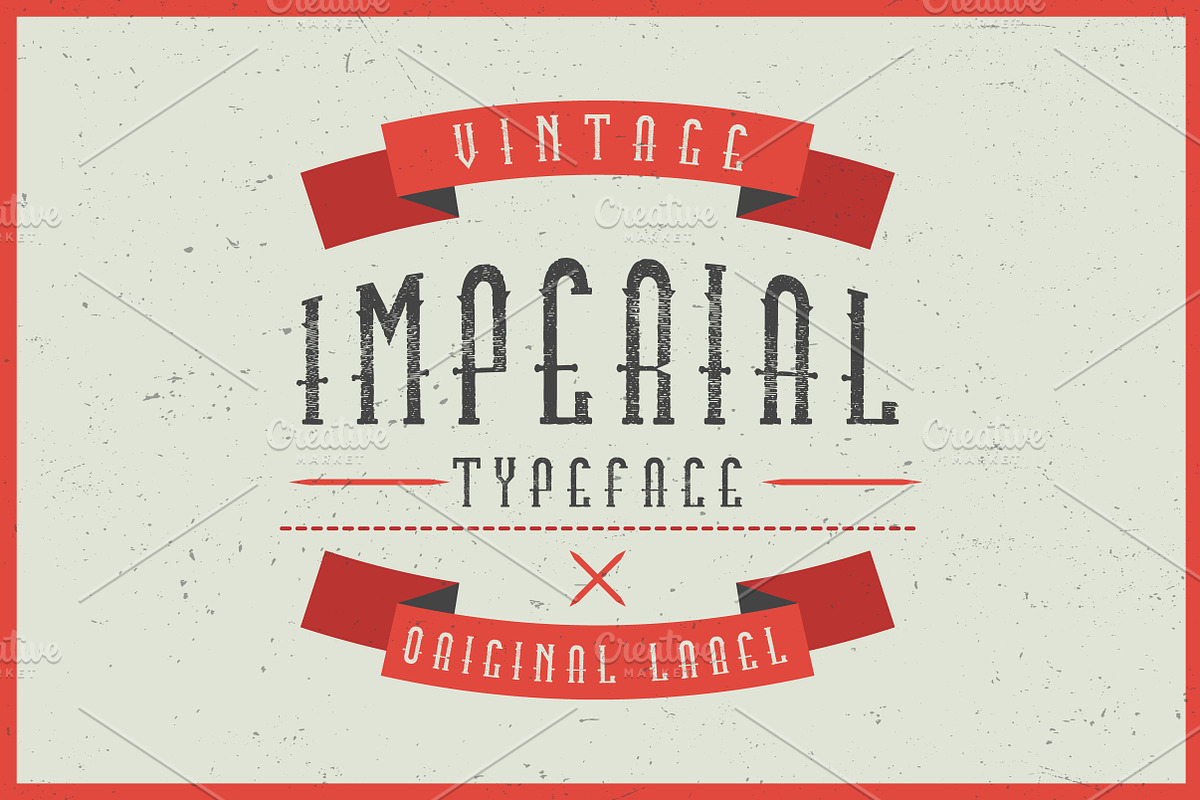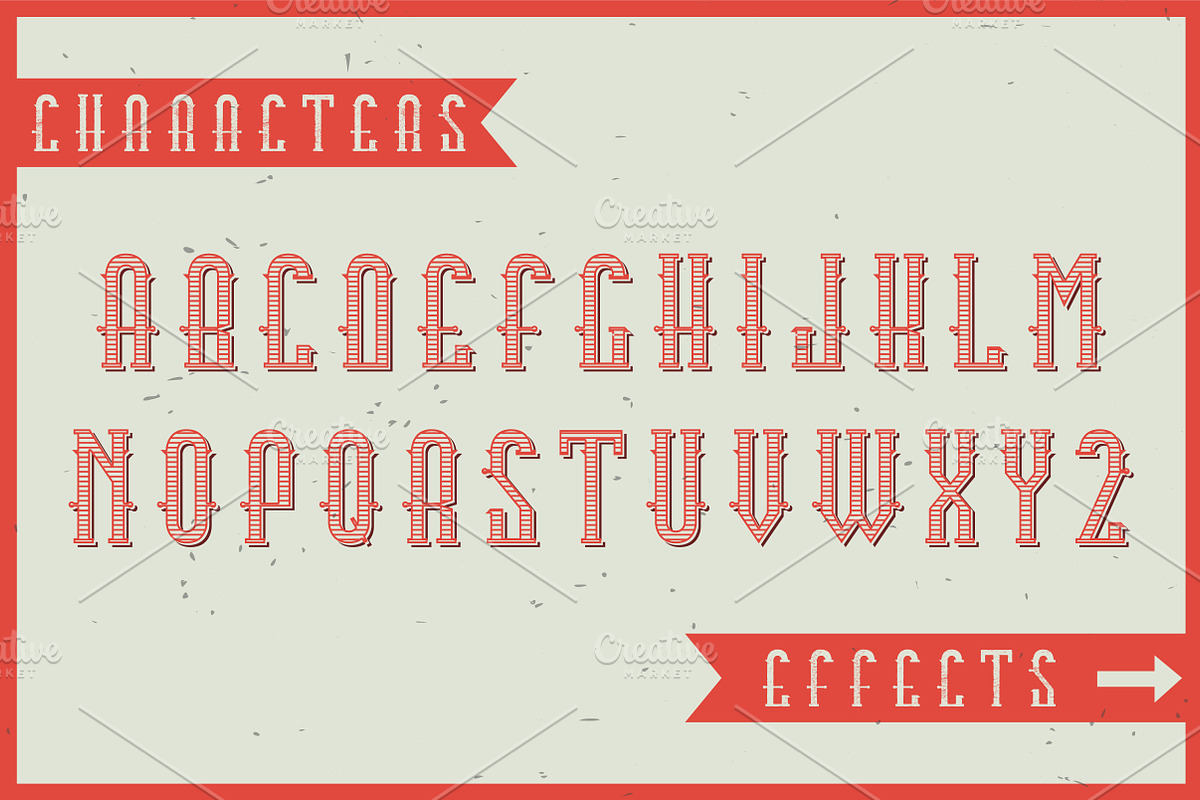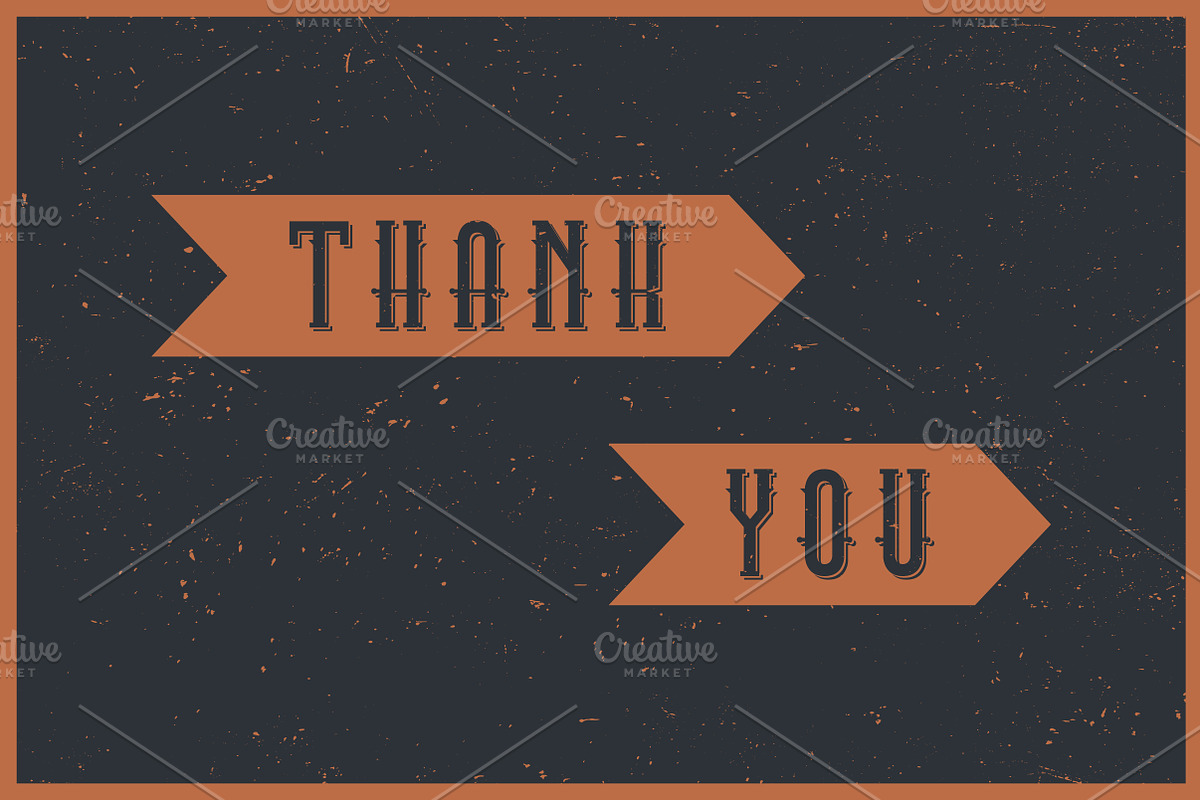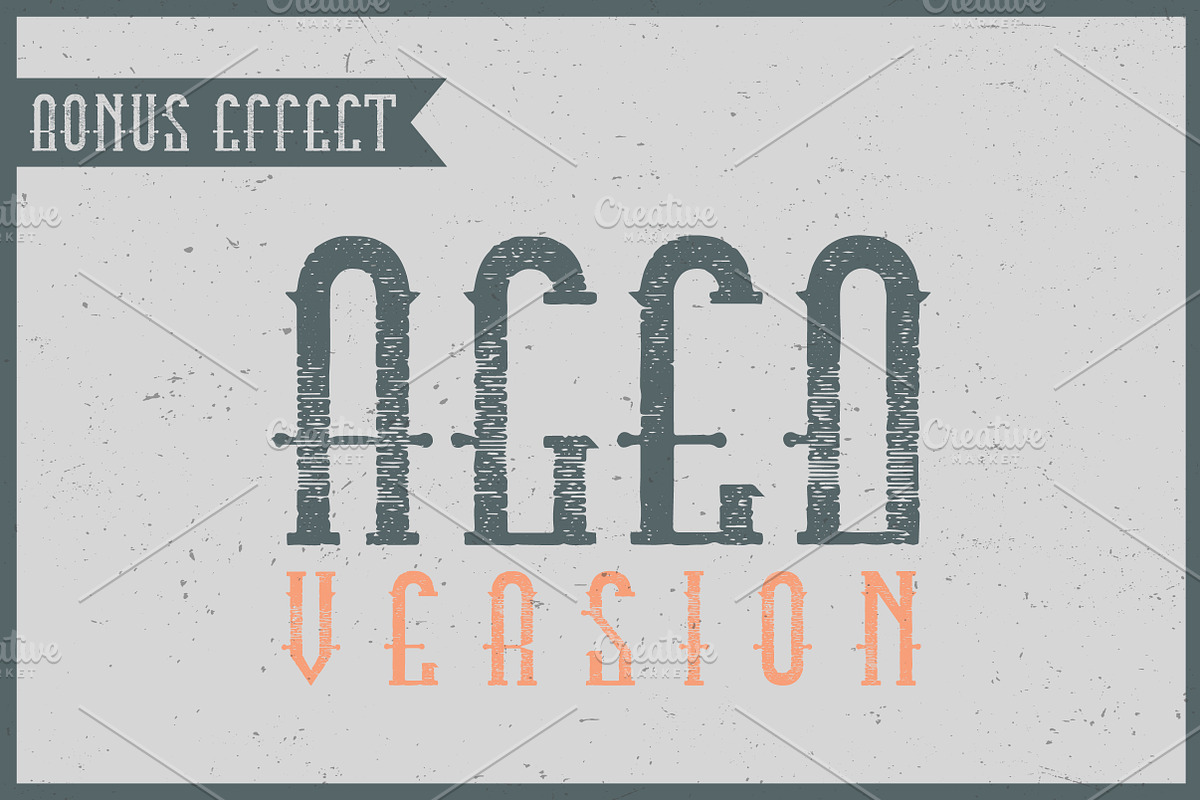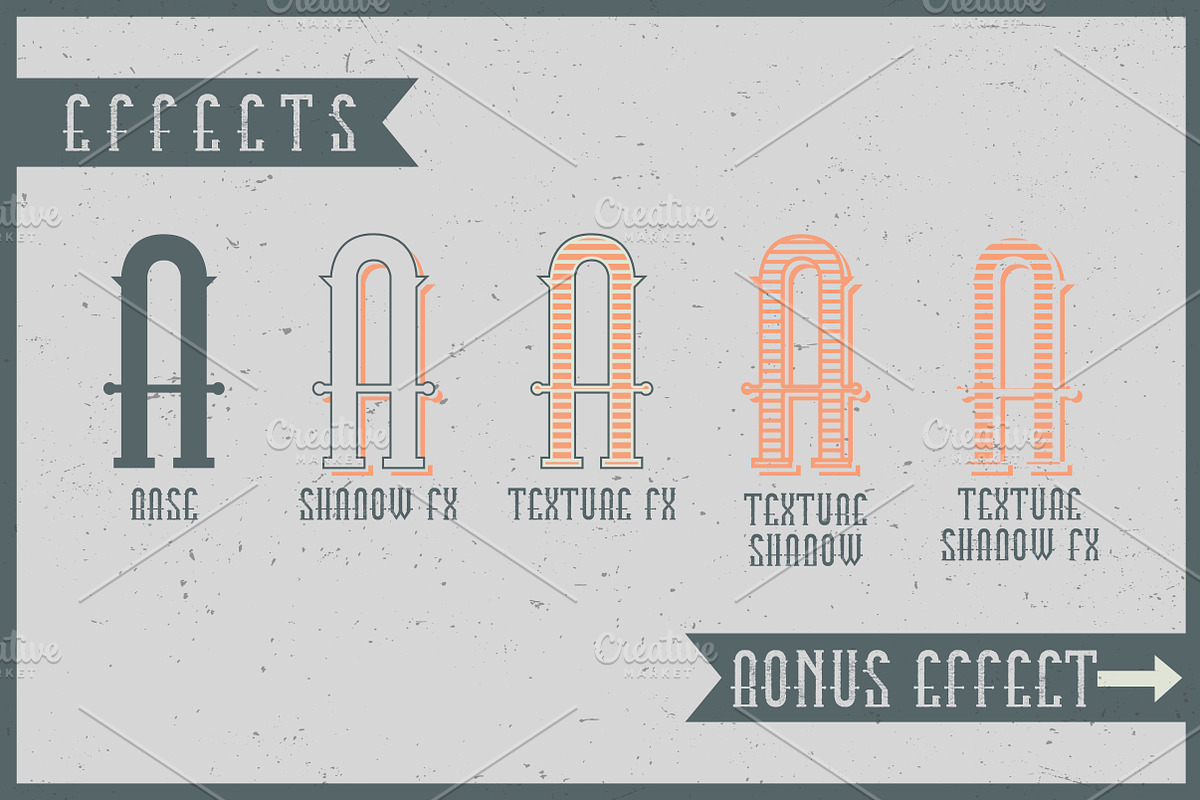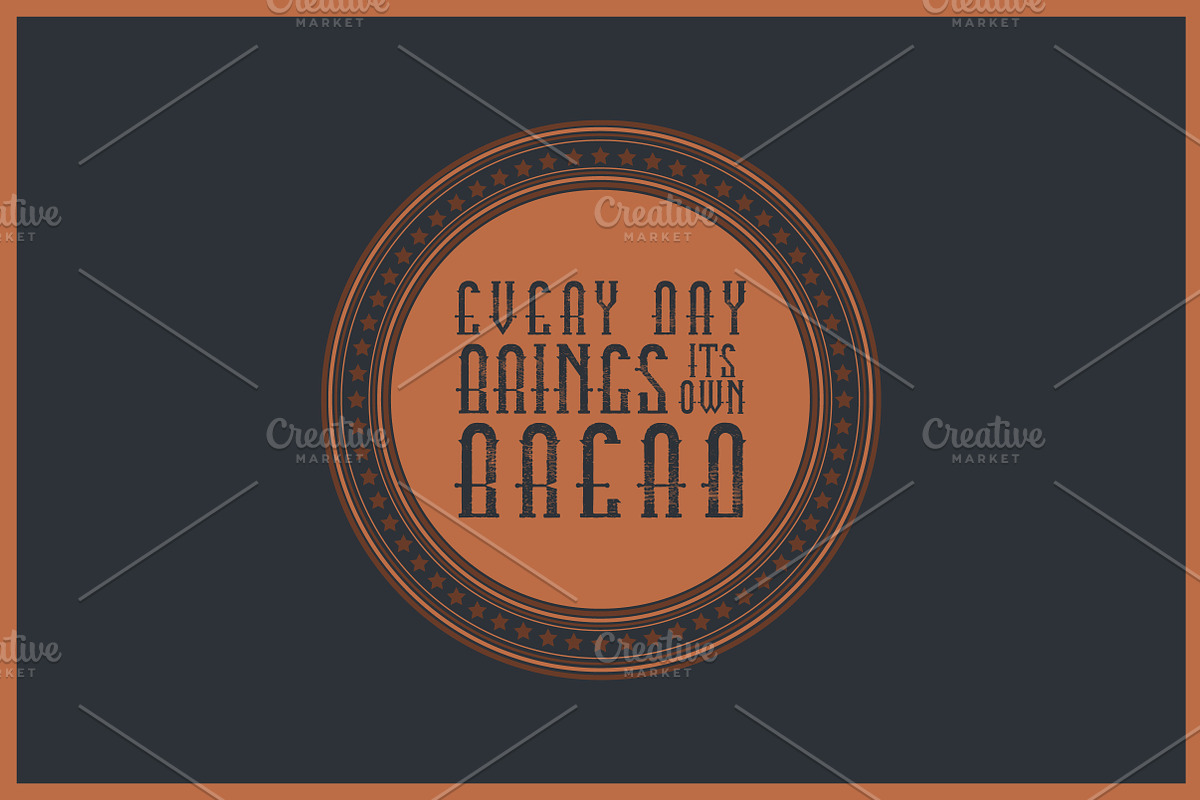
Imperial label typeface
Introducing a vintage label typeface named "Imperial". It's made in strong and vintage label style. Typeface looks great on any label designs and t-shirts.
5 fonts in complect with special effects + aged version
You can mix color of base font, texture and shadow effect (look at 3rd screenshot)
Why Imperial label typeface is worth a look
Imperial label typeface by Heatherinsane fits naturally into Branding, posters, packaging, typography.